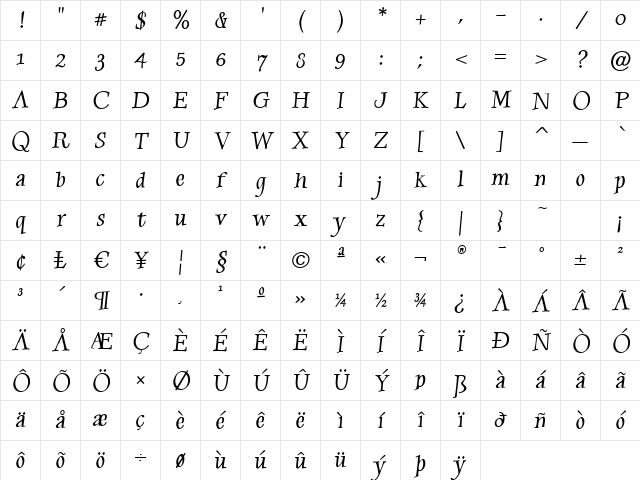
MoonbeamItalic Regular
Design Context for MoonbeamItalic
MoonbeamItalic is a composed and adaptable typeface that performs quietly and consistently across a wide range of design contexts. The slanted form adds forward momentum and visual energy.
Pro Tip: Use MoonbeamItalic for emphasis, pull quotes, and subheadings where its slanted energy can add rhythm to the layout.